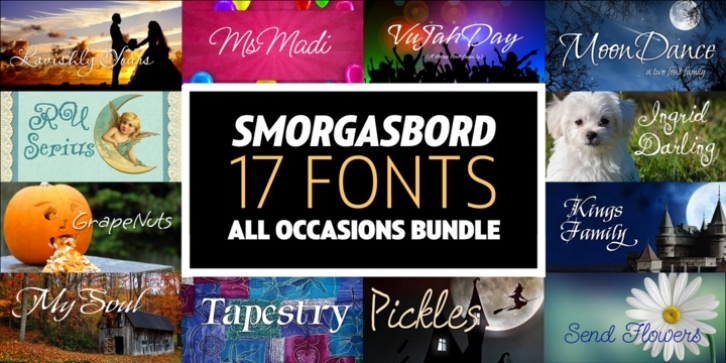
Smorgasbord was designed by Rob Leuschke and published by TypeSETit. Smorgasbord contains 17 styles and family package options.
It's an all occasion Smorgasbord in this collection of 17 fonts originally designed for the social expression industry- all ranging from juvenile/cute to masculine, to formal. Whether you want to send a nice note of thanks, or create a poster for a Renaissance Festival, you can find the right look in Smorgasbord.
The Smorgasbord collection is composed of fonts that have not been available for several years at MyFonts, but have been updated and improved to Professional standards.
· Grape Nuts
· Ingrid Darling
· Lavishly Yours
· Kings Honor
· Kings Quest
· Kings Dominion
· Moon Dance One
· Moon Dance Two
· Ms Madi
· My Soul
· Pickles
· RUSerius
· Send Flowers
· Tapestry
· Vujahday Plain
· Vujahday Script
· Vujahday Flourish